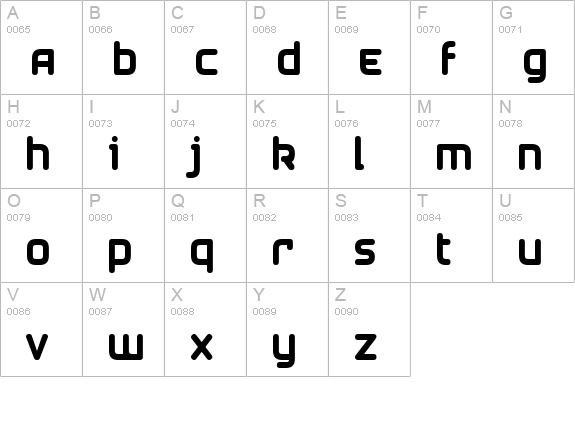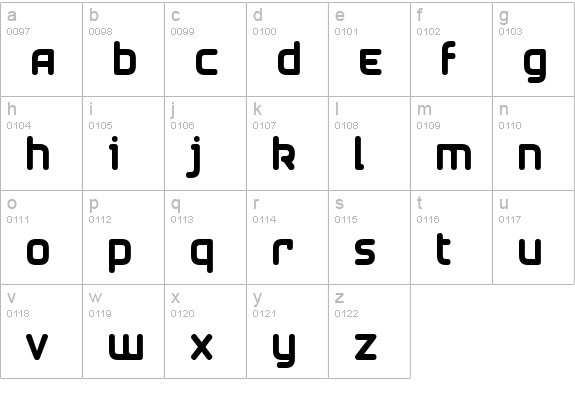
Airstrip Four Font Details
Airstrip Four font is a sleek and modern typeface that exudes a sense of sophistication and professionalism. Its clean lines and sharp edges make it perfect for a wide range of design projects, from branding to editorial layouts. The font's versatility allows it to be used in both digital and print formats, ensuring that your message is communicated clearly and effectively. What sets Airstrip Four font apart is that it is available for free download at FontsMarket.com. This means that you can access this high-quality font without any cost, making it a valuable asset for designers and creatives looking to enhance their projects without breaking the bank. With its bold and eye-catching appearance, Airstrip Four font is sure to make a lasting impression on any audience.